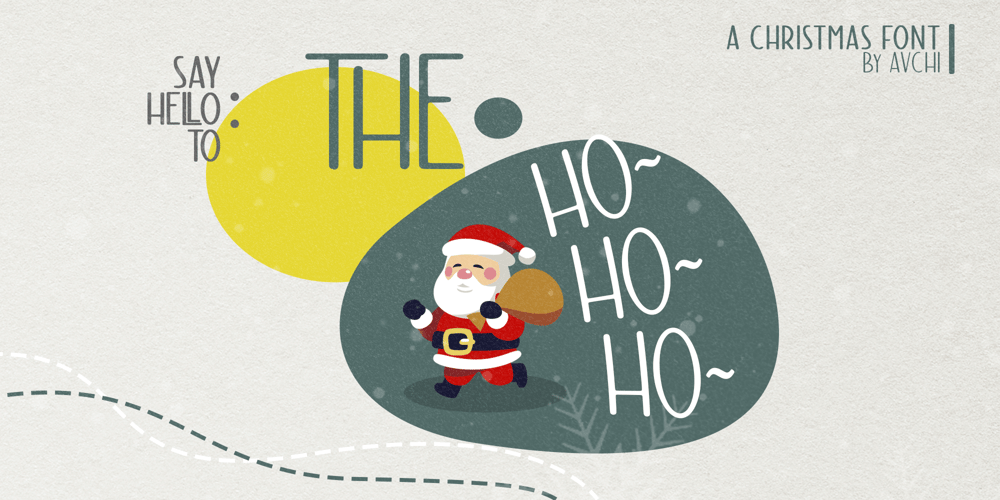
The Hohoho
The Hohoho font
The Hohoho Font Family was designed by Andreas Kosikin and published by Avchi. The Hohoho contains 1 styles and family package options. Tho Hohoho is a font specially designed for christmas purposes. This font is a condensed sans serif, have a round corner, and have a happy concept. The main target is for Christmas design, but can be use for another purposes such as kitchen, nature, and other.This Font Include : Ligatures Latin Numbers & Punctuation We wish this font can bring customers to happiness.